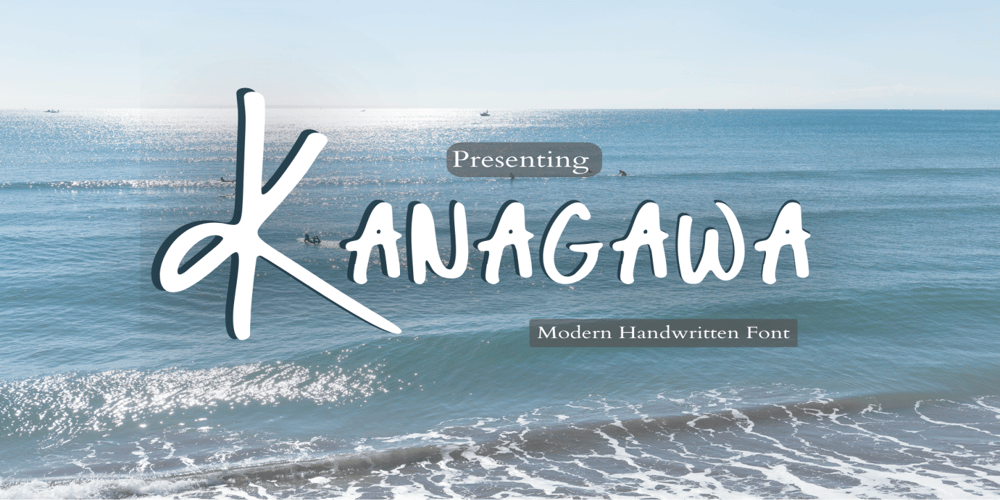
Kanagawa
Kanagawa font
Kanagawa Font Family was designed by Bo Berndal and published by Adita Fonts. Kanagawa contains 1 styles and family package options. Kanagawa is a handwritten font designed using markers. Kanagawa is perfect for branding, signatures, and much more!